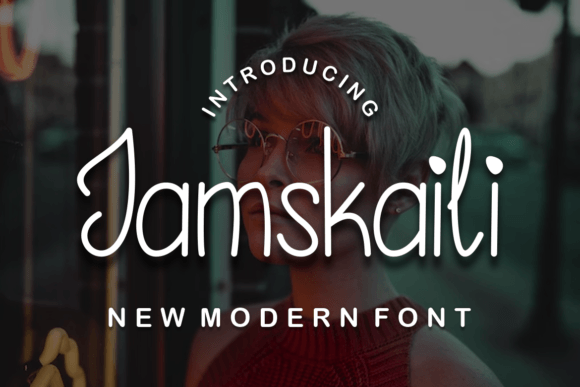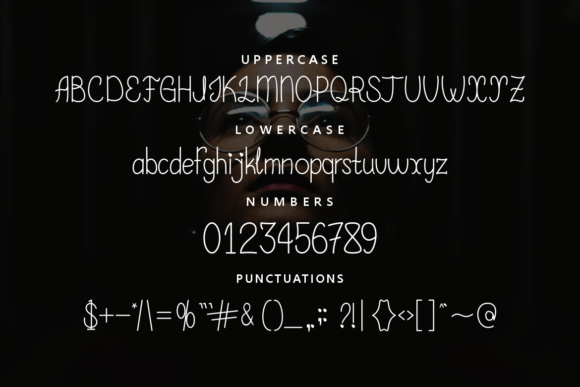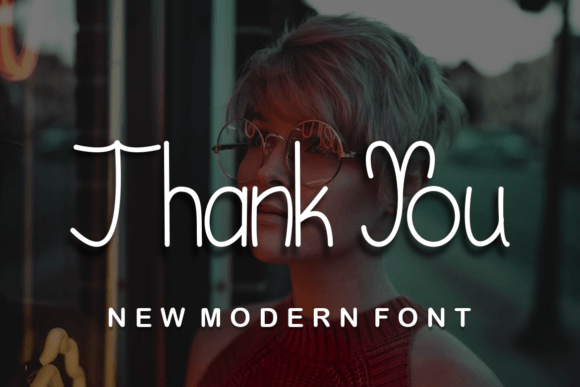
Introduction to Jamskaili Font Font
Have you ever stumbled upon a font that instantly sparks creativity and makes you want to dive into a new project? That’s exactly what happened to me when I discovered the Jamskaili Font Font. Its beautiful, handwritten design feels both elegant and modern, making it the perfect addition to any creative endeavor.
As a designer, I can attest to the value of having a high-quality font like Jamskaili Font Font in your arsenal. With its versatility and sophistication, it’s a game-changer for projects ranging from signature and stationery to logo design and magazine covers. Whether you’re looking for a free download or a premium design resource, Jamskaili Font Font is sure to elevate your creative project and provide a unique touch.
What sets Jamskaili Font Font apart is its transparent background, allowing for seamless integration into any design. Plus, its modern aesthetic makes it a fantastic choice for branding, packaging design, and even clothing labels. If you’re looking to add a touch of elegance to your next project, look no further than the Jamskaili Font Font.
Key Features of Jamskaili Font Font
- High-quality, free download design resource ideal for creative projects.
- Features a transparent background, allowing for seamless integration with any design element.
- Designed to be highly legible, making it perfect for use in digital and print media.
Honest Review: Jamskaili Font Font
As a designer, I’m always on the lookout for high-quality design resources to elevate my creative projects. I recently came across Jamskaili Font Font and was excited to give it a try.
- ✨ The font is incredibly versatile and can be used for a wide range of creative projects, from logos to typography.
- ✨ The high-quality design is evident in every detail, making it a great addition to any design resource collection.
- ✨ The transparent background is a nice touch, allowing for seamless integration into various design environments.
- ⚠️ The font may not be suitable for all design projects, particularly those requiring complex typography or bold, statement-making fonts.
Overall, I’m impressed with Jamskaili Font Font. It’s a solid addition to any designer’s toolkit and offers great value for its price. If you’re looking for a high-quality font to elevate your creative projects, I’d definitely recommend giving it a try.
Tips for Getting the Most Out of Jamskaili Font Font
To maximize the potential of the Jamskaili Font Font, experiment with different font sizes, colors, and combinations. You can also use it as a design element in its own right, rather than just as a font.
The Jamskaili Font Font is ideal for a wide range of creative projects, including logos, branding materials, and even social media graphics. Its unique design and high-quality construction make it a valuable design resource for any project.